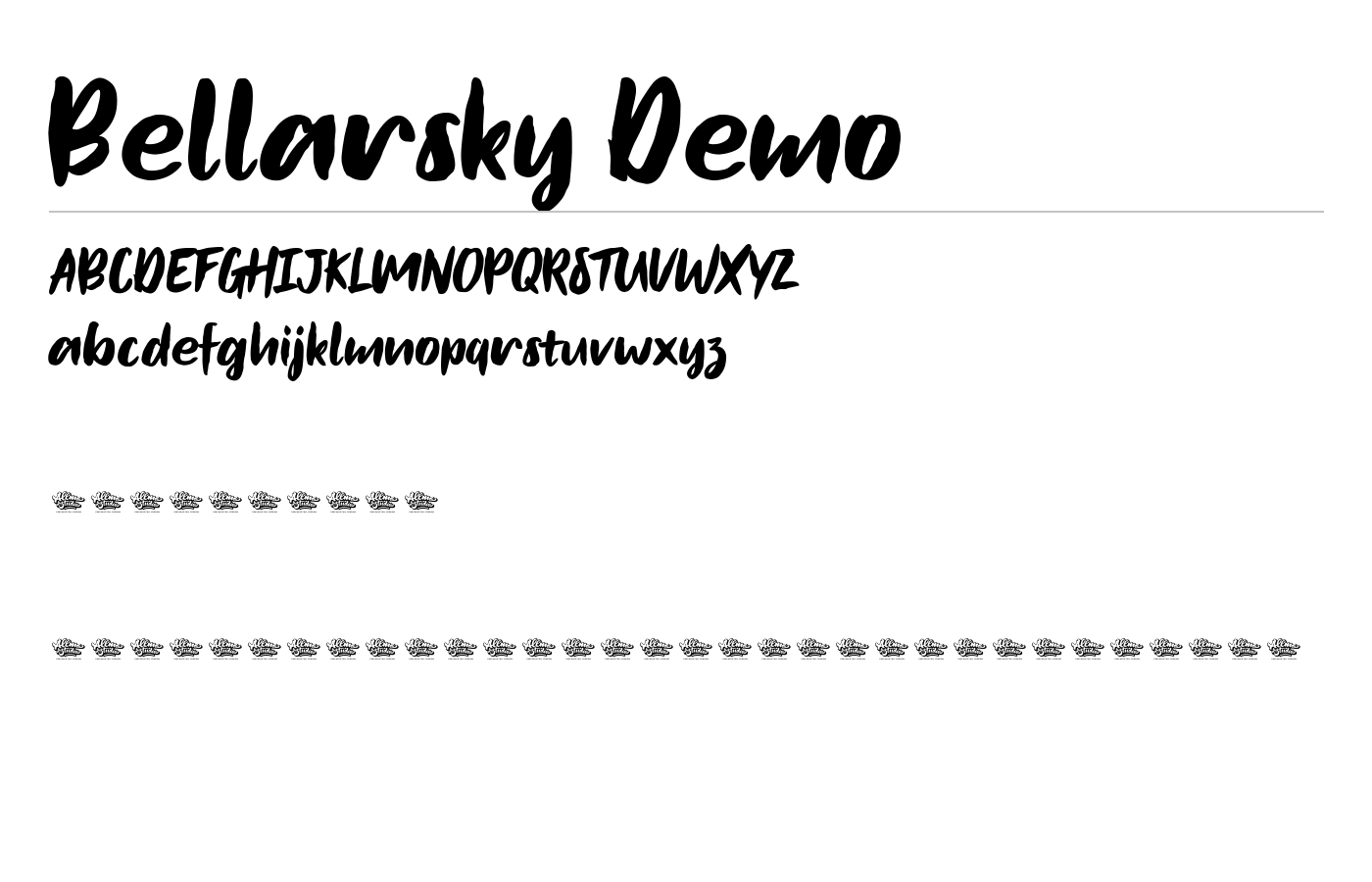
Bellarsky Demo is a bold, brush script font with a strong, handcrafted feel. Its smooth, slightly irregular strokes give it an energetic, friendly personality, making it perfect for casual and creative designs, such as logos, branding, and posters that seek a personal, informal touch. This font stands out with its lively style and works well where warmth and approachability are desired.
Bellarsky Demo Font
About Bellarsky Demo Font
| Font family | Bellarsky Demo Font |
| Designer | Muhammad Nur Alamsyah |